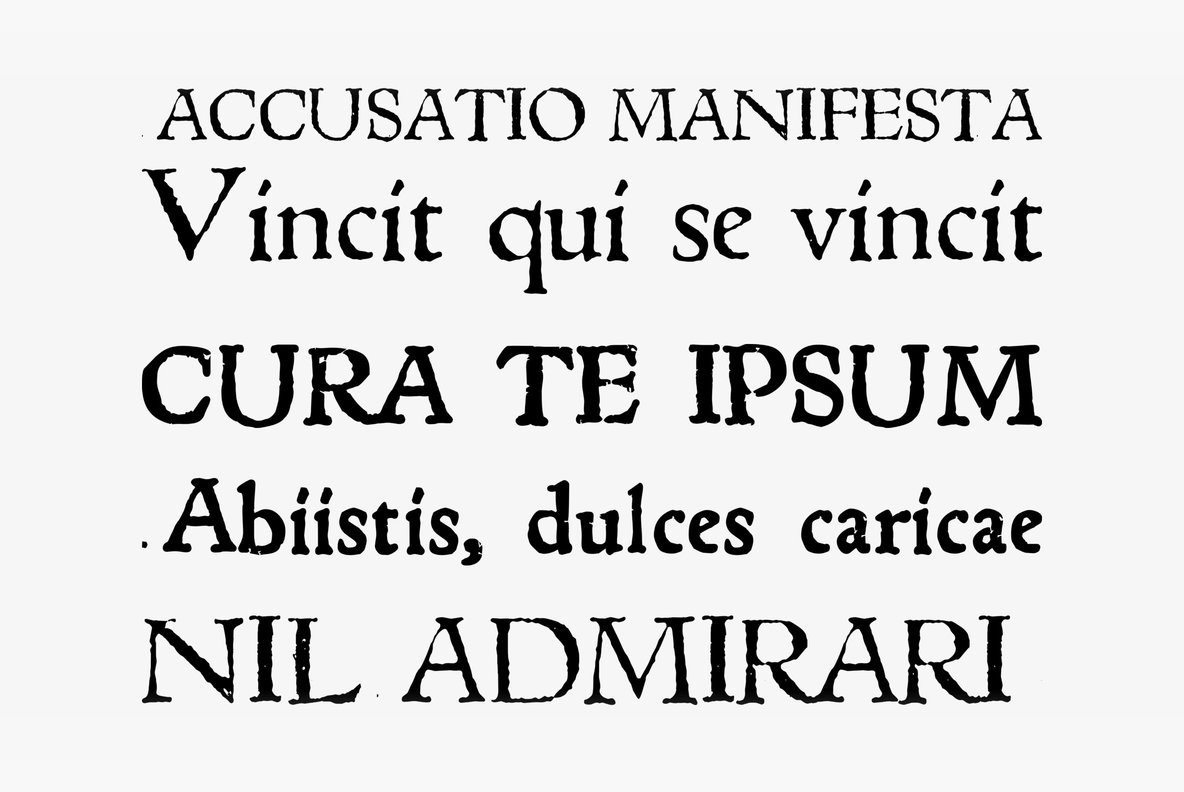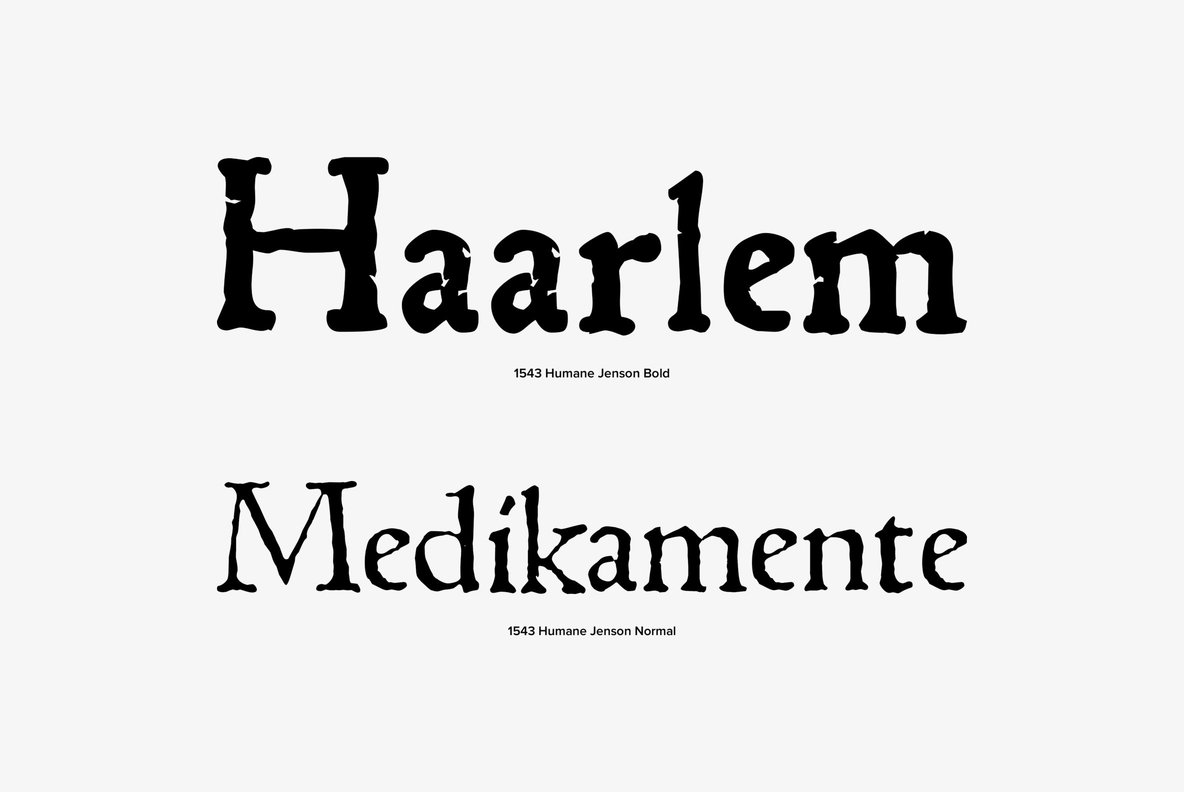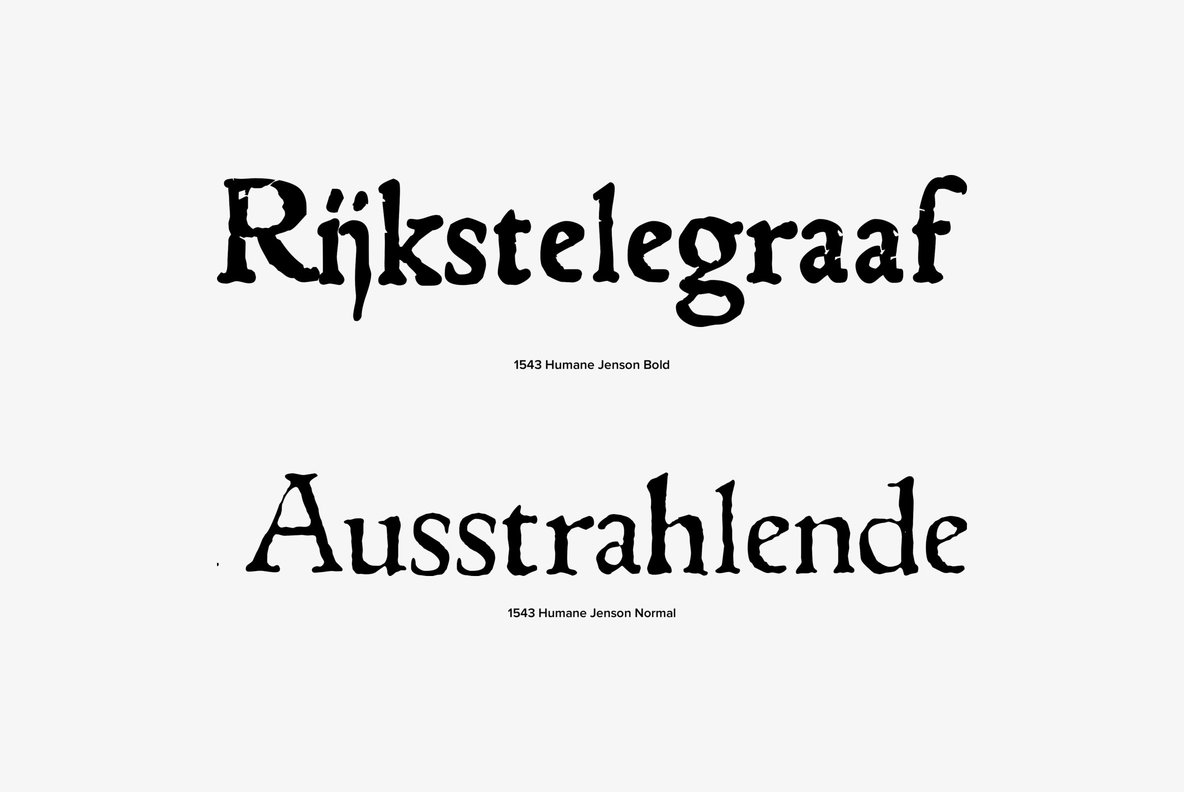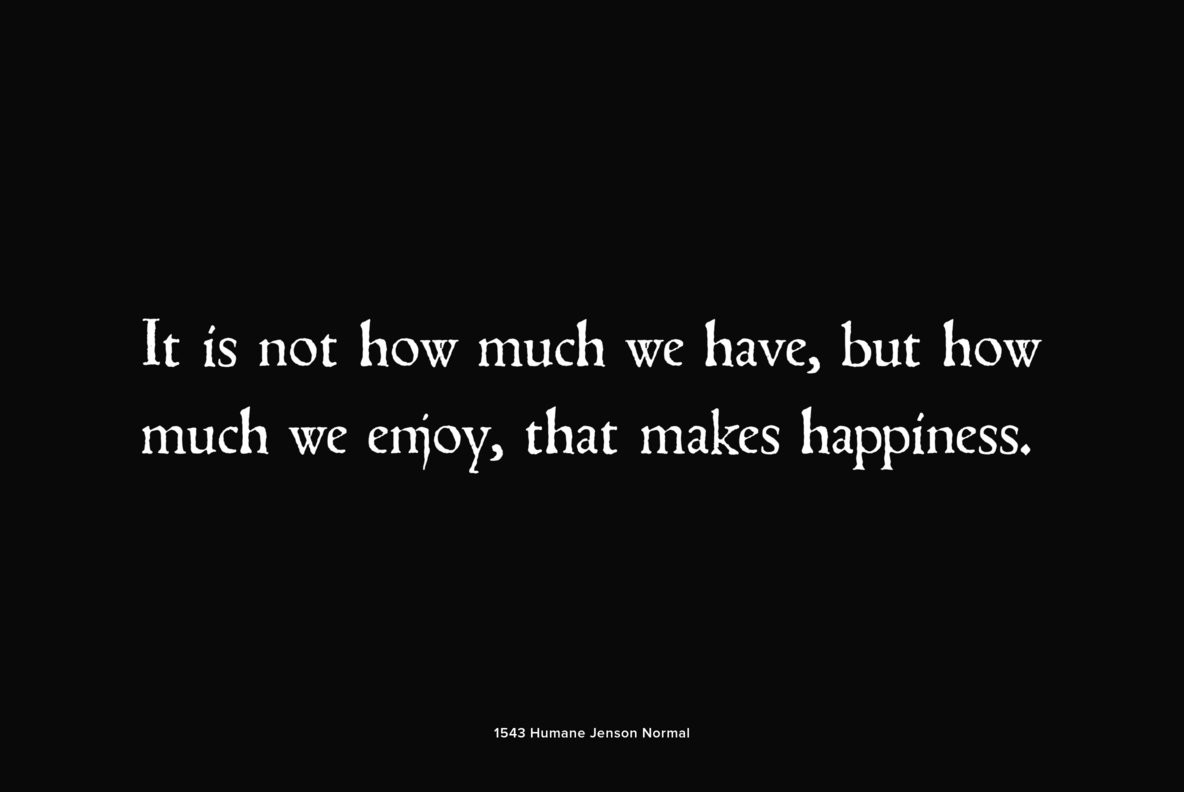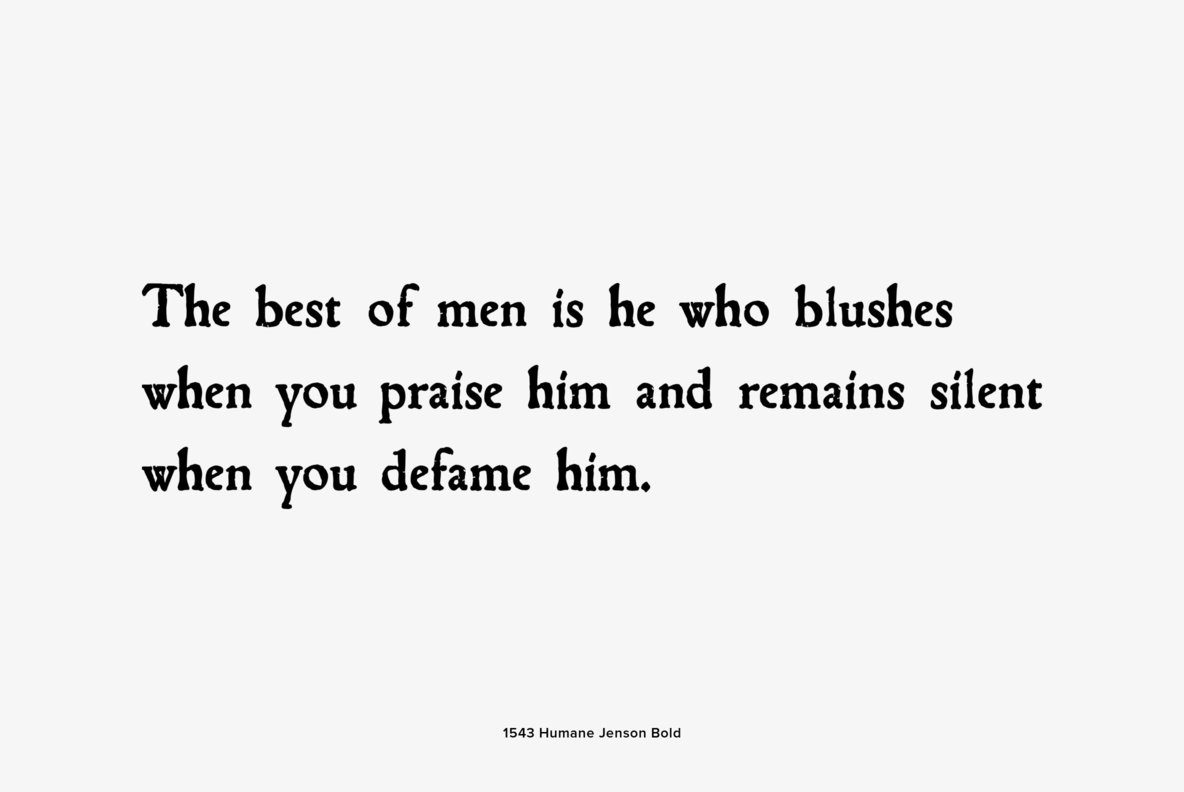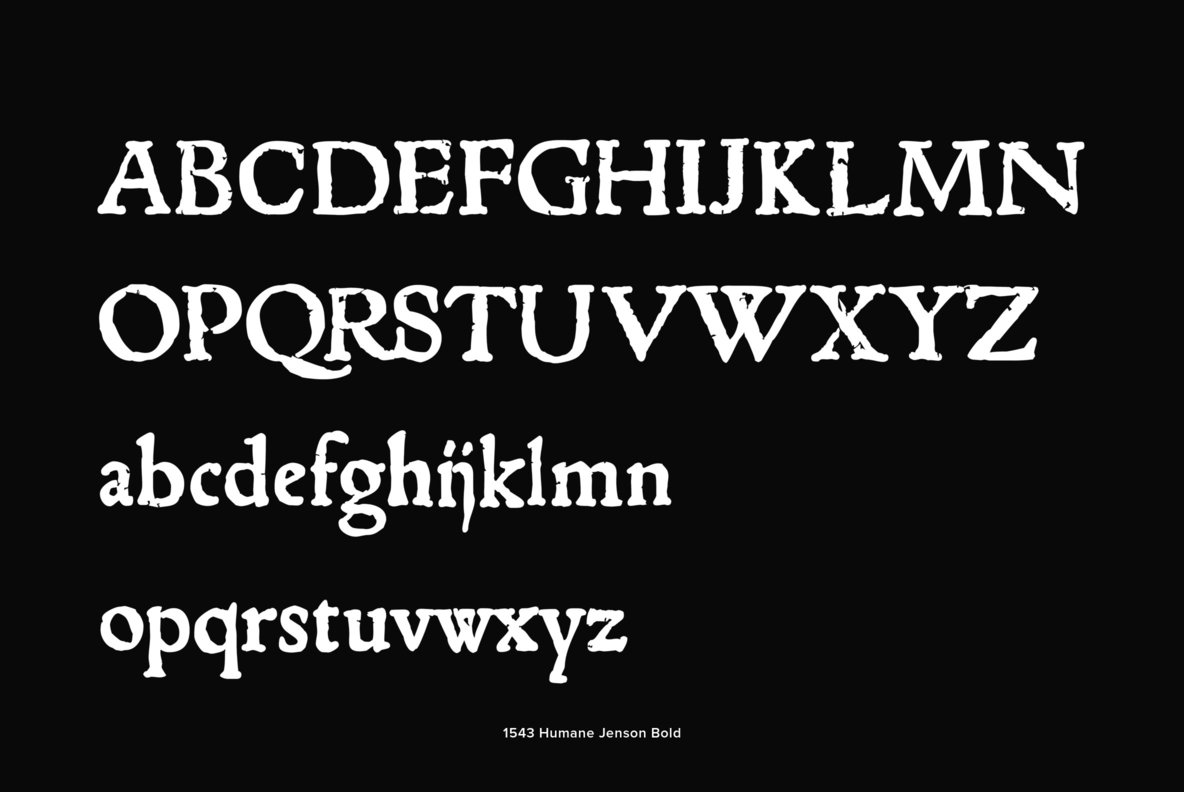
1543 Humane Jenson Font
In 1543 the well-known “De humani corporis fabrica” treatise on anatomy by André Vesale, was printed by Johann Oporinus in Basel (Switzerland). Various typefaces were used for this work, mostly in Latin but including Greek characters. Its Jenson-type font was the one which inspired this font.
It is a very elegant one, including the “long s”, a few abbreviation forms and ligatures. As it was a Latin text, there were no accented characters and a few capitals were absent. I had to reconstruct them.
This font may be used as a “modern” one for web-site, posters and flyer designs, publishing ancient texts... and anything else you want! One of the most elegant types ever cut, it stands up very well to enlargement, remaining as readable as in its original small size.